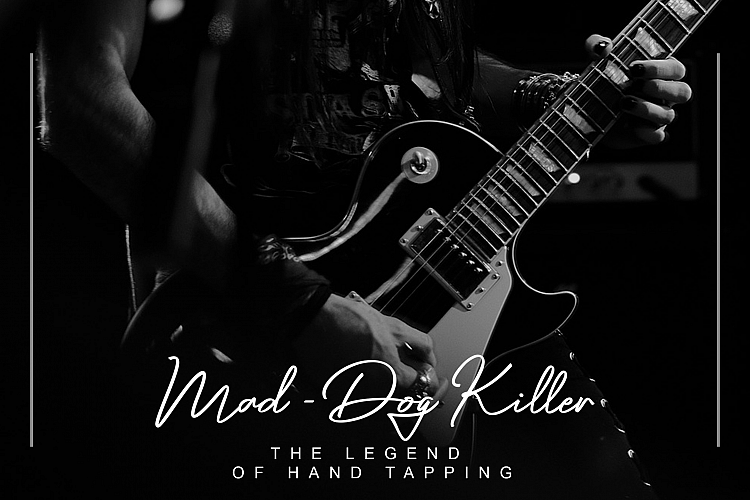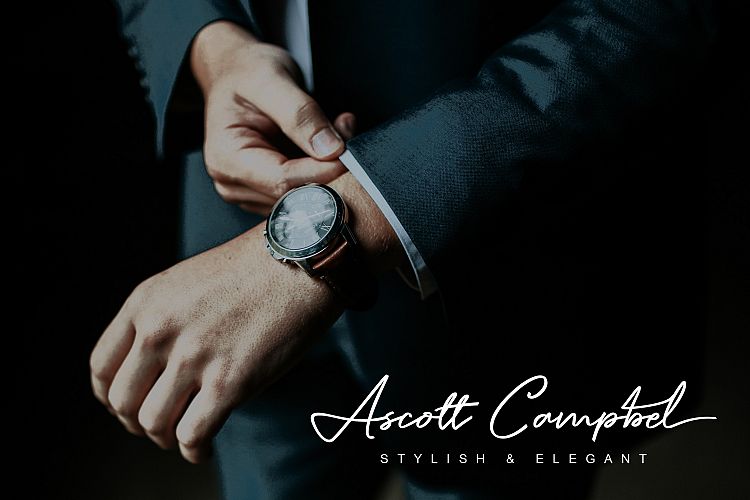
Naiyana Script Font
Introducing our latest font creation : Naiyana handwriting Font
This is a handwriting font, handcrafted from our Studio here in, Indonesia. The artists/designers of this beautiful typeface is Deyan and Sarah Suci.
Naiyana handwriting Font is an unique display script typeface with pen style. This font has a stunning characters set, perfectly managed with well spaced and kerning. The theme style of this font will elegant, vintage, stylish, sophisticated and classic style.
Naiyana handwriting Font will be great for any projects including : branding, logo, stationery, business card, signage, flyer, brochure etc. Almost all industries will be match for this typeface: wedding, events, real estate, architect, law firm, florist, gardening, makeup artist, travel, hotel, musician etc